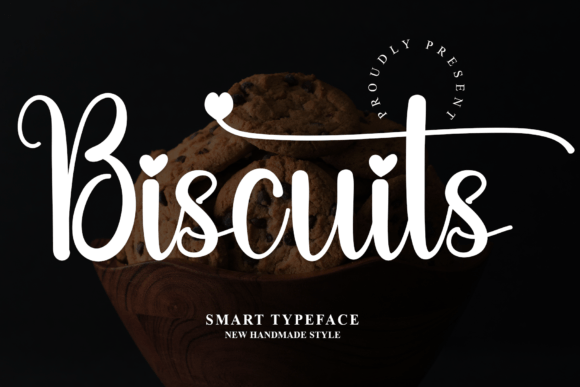
The Magic of Biscuits Font: A Holiday Design Delight
It’s that time of the year again – the holiday season is just around the corner, and with it comes the pressure to create stunning designs that capture the spirit of the festivities. I still remember the year I was tasked with designing a Christmas card for a client’s family reunion. I spent hours scouring font libraries, searching for the perfect typeface that would convey the warmth and cheer of the season. That’s when I stumbled upon Biscuits Font, and it instantly became my go-to for holiday designs.
- ✨ Festive and happy vibe that’s perfect for holiday designs
- ✅ Unique decorative elements that add a touch of charm to your projects
- ✅ Works beautifully for greeting cards, gift labels, and holiday-themed projects
A Few Quirks to Keep in Mind
While Biscuits Font is a delightful addition to any design project, there are a few things to keep in mind. ⚠️ Some users have reported that the font can be a bit finicky when used in certain design software. Additionally, 🤔 the font’s playful nature may not be suitable for more formal or corporate designs.
The Story Behind Biscuits Font
Biscuits Font was designed with the holiday season in mind. The creator wanted to craft a font that would capture the warmth and cheer of the festivities, while also adding a touch of whimsy and playfulness. The result is a font that’s perfect for designers, crafters, and creative hobbyists who want to add a personal touch to their holiday designs.